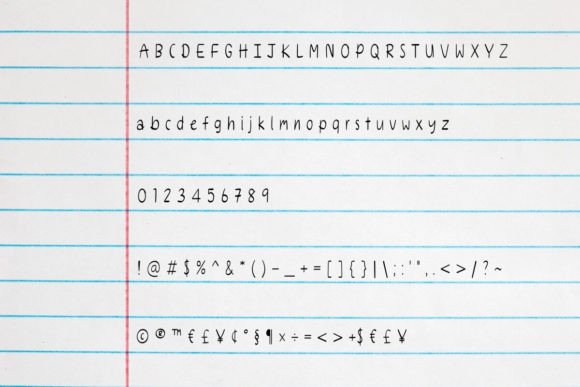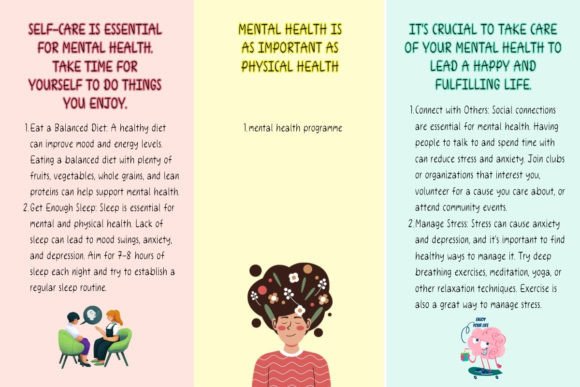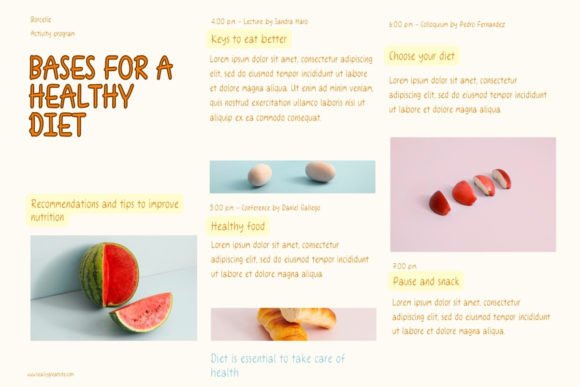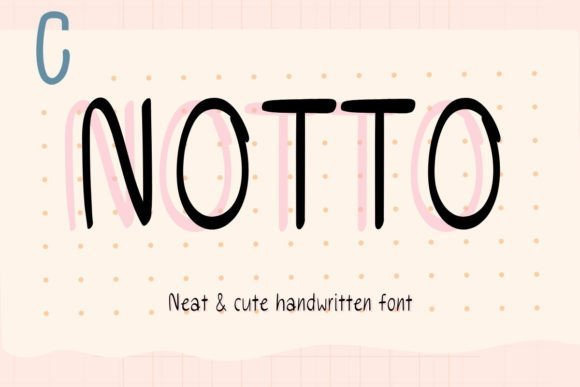
Introduction to Notto Font
Discover Notto Font – Your Neat and Cute Handwriting Solution.
Elevate your projects with the elegance of Notto Impeccable, neat handwriting meets modern design, perfect for invitations, branding, and personal touches.
Notto Font offers exceptional quality and versatility, making it a valuable addition to your design toolkit. Whether you’re creating for personal projects or commercial use, Notto Font delivers professional results.